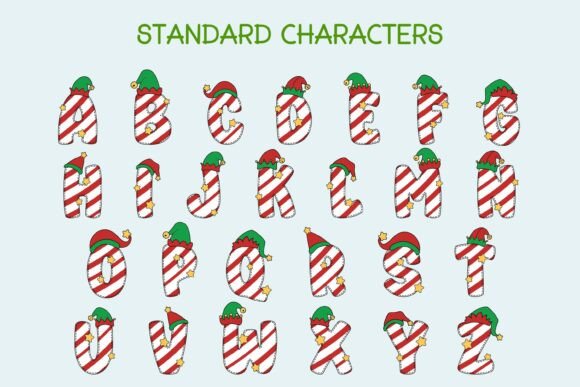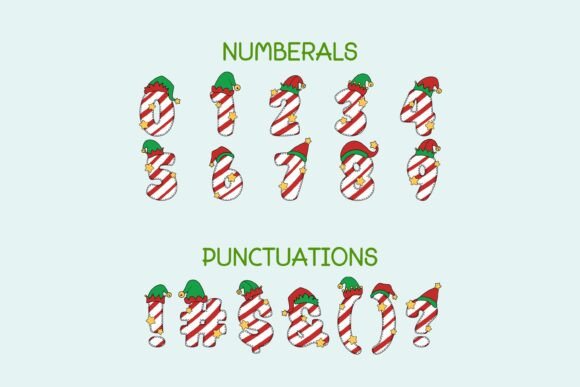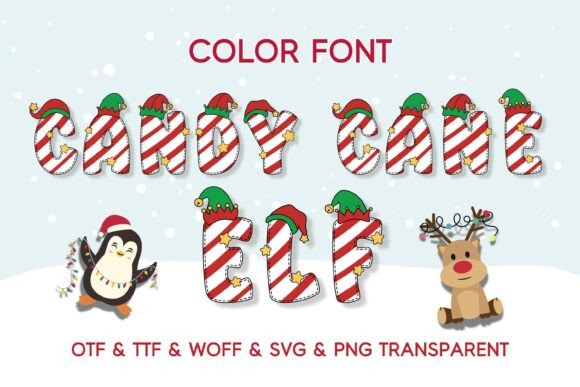
Candy Cane Elf Font: The Ultimate Holiday Display Font for Designers and Crafters
Are you looking for a font that embodies the whimsical spirit of Christmas and adds a touch of festive cheer to your designs? Look no further than the Candy Cane Elf Font! This playful and festive color font is perfect for designers and crafters who want to create holiday-themed projects that are bursting with creativity and charm.
A Unique and Charming Font
The Candy Cane Elf Font is a charming, festive, and utterly unique color font that transforms ordinary text into delightful, three-dimensional holiday illustrations. Each letter is meticulously crafted to look like a stitched, candy-striped fabric appliqué, complete with a tiny elf hat and sprinkled with golden stars. This font is perfect for creating festive greeting cards, holiday party invitations, vibrant scrapbooking projects, children’s holiday book titles, and charming product packaging.
Key Features of the Candy Cane Elf Font
- SVG/PNG Color Font: The Candy Cane Elf Font is an SVG/PNG color font, which allows designers to achieve an instant, complex, decorative, and colorful effect without needing layers or effects.
- Handcrafted Charm: Each letter is meticulously crafted to look like a stitched, candy-striped fabric appliqué, complete with a tiny elf hat and sprinkled with golden stars.
- Festive and Playful: The Candy Cane Elf Font is perfect for creating holiday-themed projects that are bursting with festive cheer and creativity.
- Instant Recognition: This unique holiday display font ensures that your seasonal designs are instantly recognizable, cute, and bursting with handcrafted charm.
Uses for the Candy Cane Elf Font
The Candy Cane Elf Font is perfect for a variety of holiday-themed projects, including:
- Greeting Cards: Create festive greeting cards that are sure to delight your friends and family.
- Holiday Party Invitations: Design eye-catching holiday party invitations that set the tone for a fun and festive celebration.
- Scrapbooking Projects: Add a touch of festive cheer to your scrapbooking projects with the Candy Cane Elf Font.
- Children’s Holiday Book Titles: Create charming and festive book titles that are perfect for children’s holiday books.
- Product Packaging: Add a touch of holiday cheer to your product packaging with the Candy Cane Elf Font.
Why Choose the Candy Cane Elf Font?
There are many reasons why designers and crafters should choose the Candy Cane Elf Font for their holiday-themed projects. Here are just a few:
- Unique and Festive: The Candy Cane Elf Font is a unique and festive font that is sure to add a touch of holiday cheer to your designs.
- Easy to Use: The Candy Cane Elf Font is easy to use and can be incorporated into a variety of design projects.
- High-Quality: The Candy Cane Elf Font is a high-quality font that is sure to impress your clients and friends.
- Versatile: The Candy Cane Elf Font can be used for a variety of holiday-themed projects, from greeting cards to product packaging.
| Font Name | Candy Cane Elf Font |
| Author | Adalin Digital |
If you’re looking for a font that embodies the whimsical spirit of Christmas and adds a touch of festive cheer to your designs, look no further than the Candy Cane Elf Font. This playful and festive color font is perfect for designers and crafters who want to create holiday-themed projects that are bursting with creativity and charm. With its unique and charming design, ease of use, and versatility, the Candy Cane Elf Font is the ultimate tool for creating festive and memorable designs.